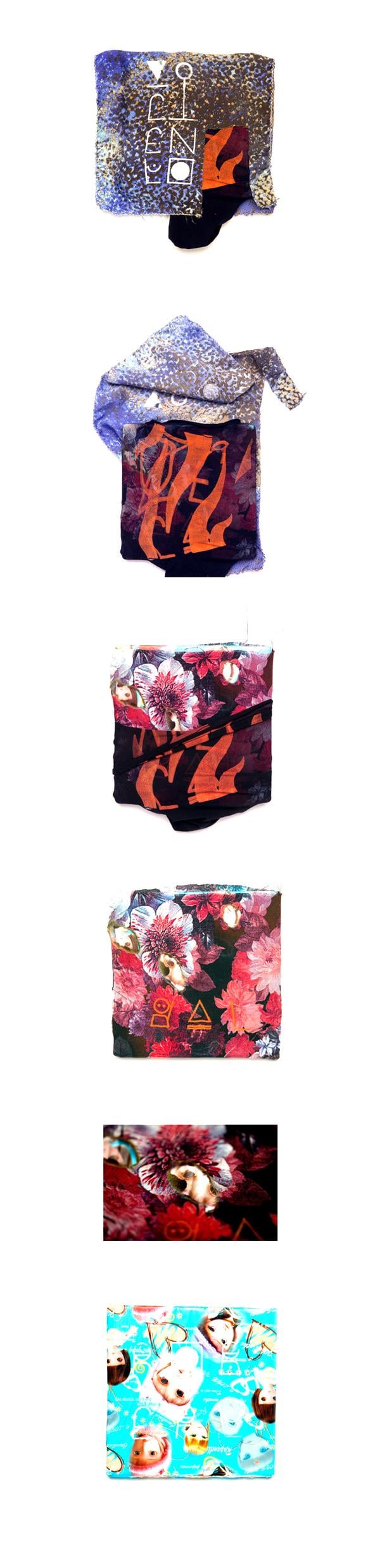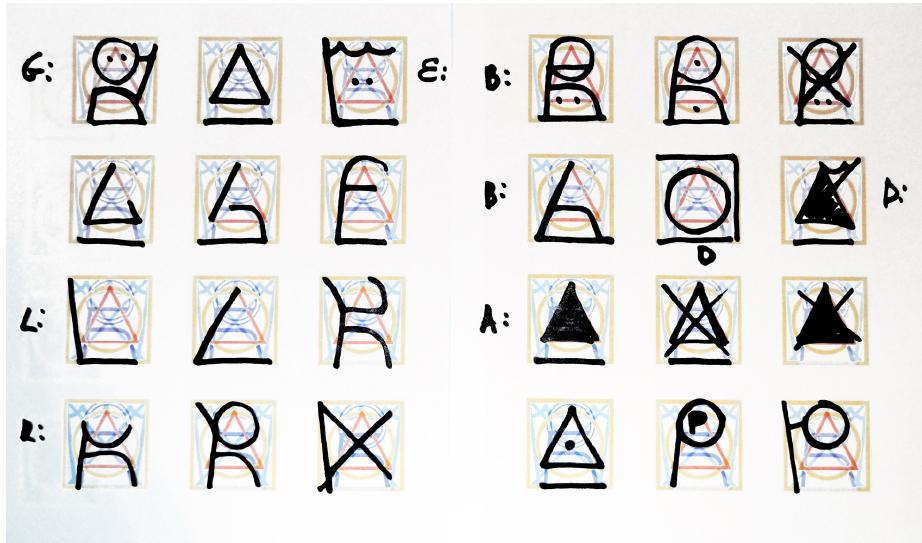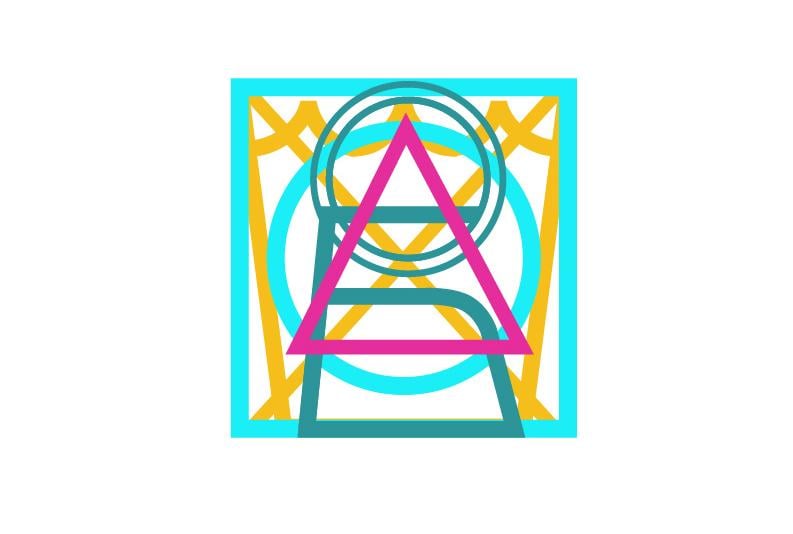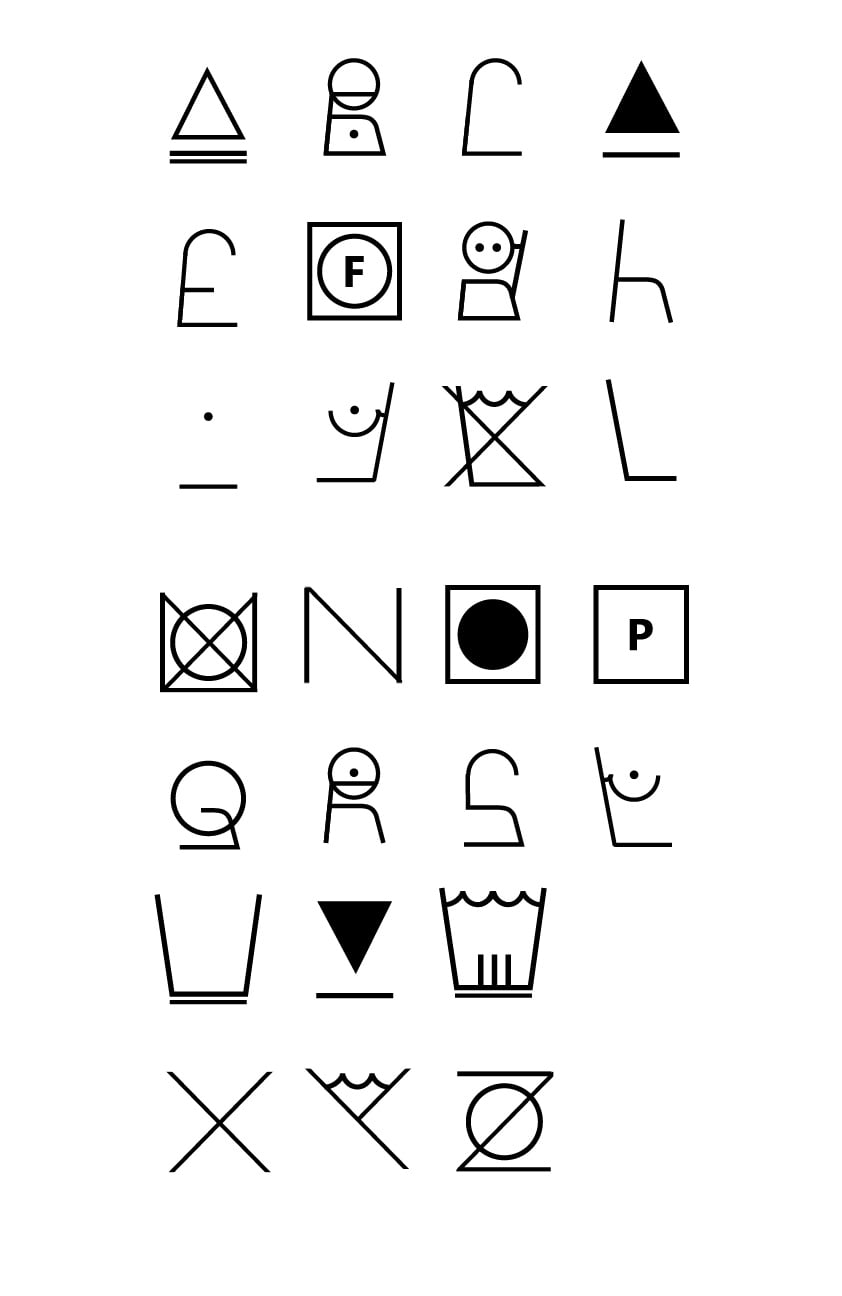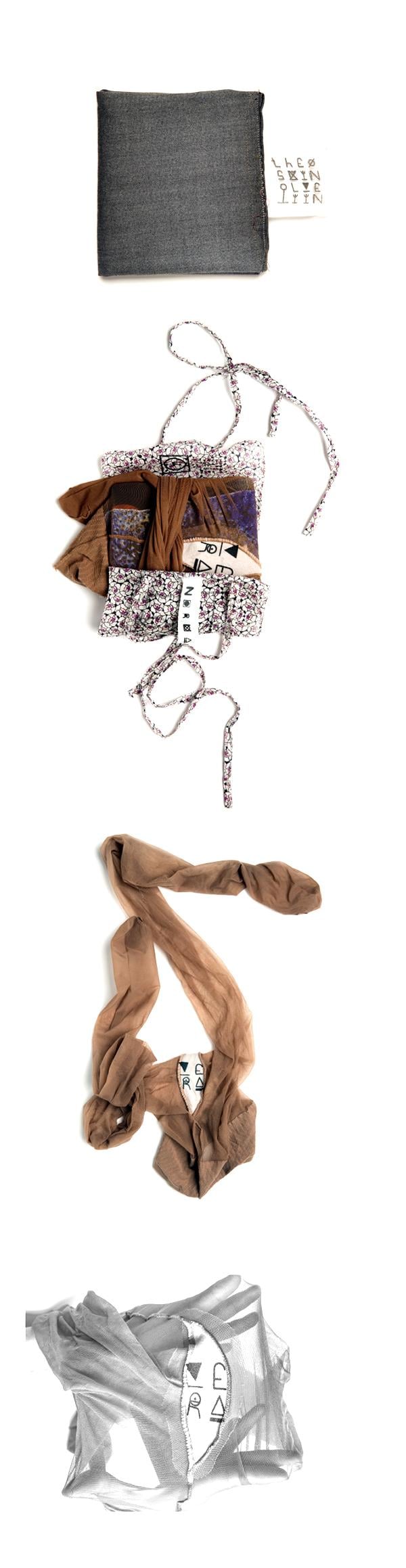
Laundry Font
I enjoyed working on this Project, now I see grids suitable for creating fonts everywhere.Prior to comminting to a laundry sign grid I experimented with shadows from different objects.
The final typeface is based on  a grid created with the washcare symbols.
In the end I decided to showcase a font in a little zine, therefore I thought it could be nice to attach the letters to some plot and chose a movie "Skin I live in" by Pedro Almodovar.
In the movie, skin was treated like an external body cover, a container preserving human essence. Thus, I decided to apply washcare typeface on different fabric related to costumes of movie characters and use names and phrases from the picture to narrate a story.
Every character plays a certain role, wears a costume he might put back in a closet, wash, dry, torn apart. In that perspective, the font on the basis of washcare symbols enhanced the idea of the movie. In the zine I tried to show nature of each character and his or her relations to the other characters of the story. The viewer supposed to undress the book, revealing strange connections and metaphors, binding the characters together and separating them.